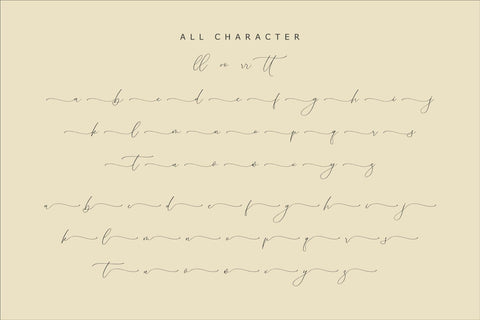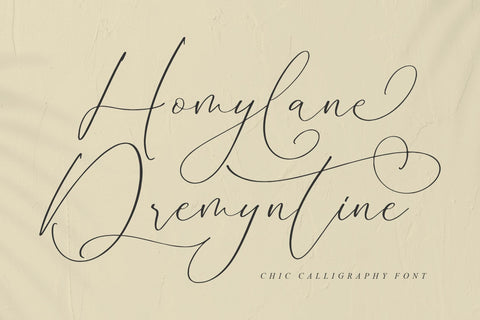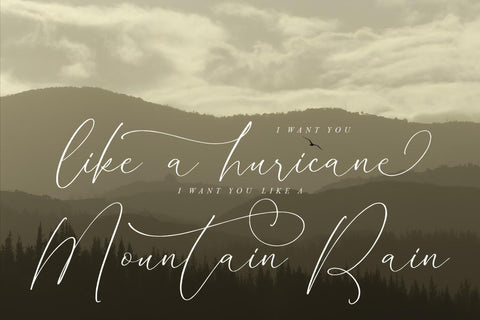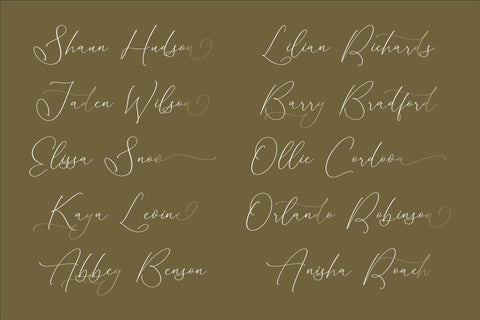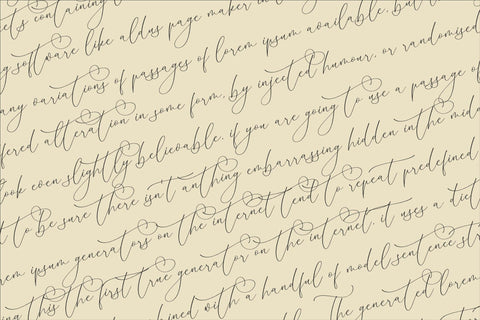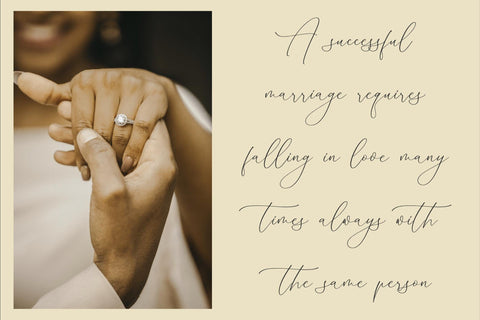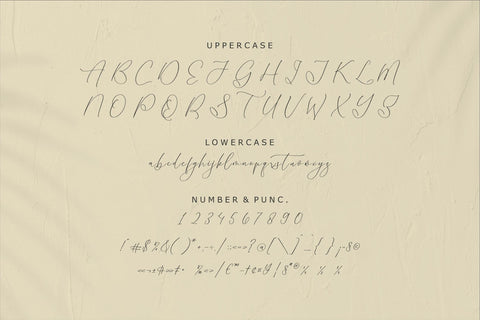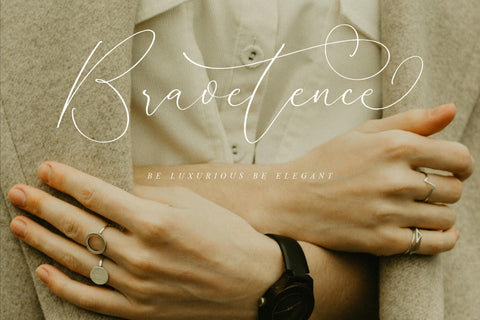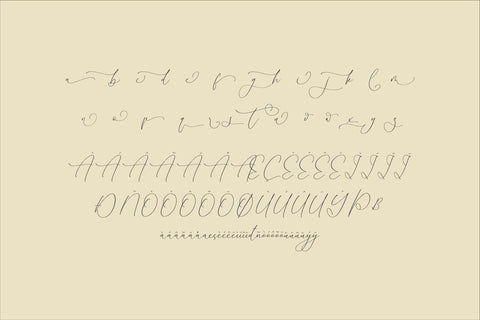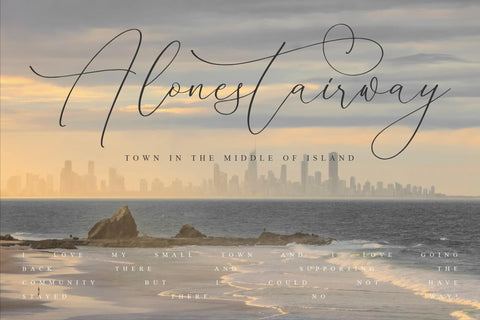
Homylane Dremyntine - Chic Calligraphy Font
Proudly present Homylane Dremyntine - Chic Calligraphy Font , created by Storytype,
A luxury script that has own unique style & modern look.